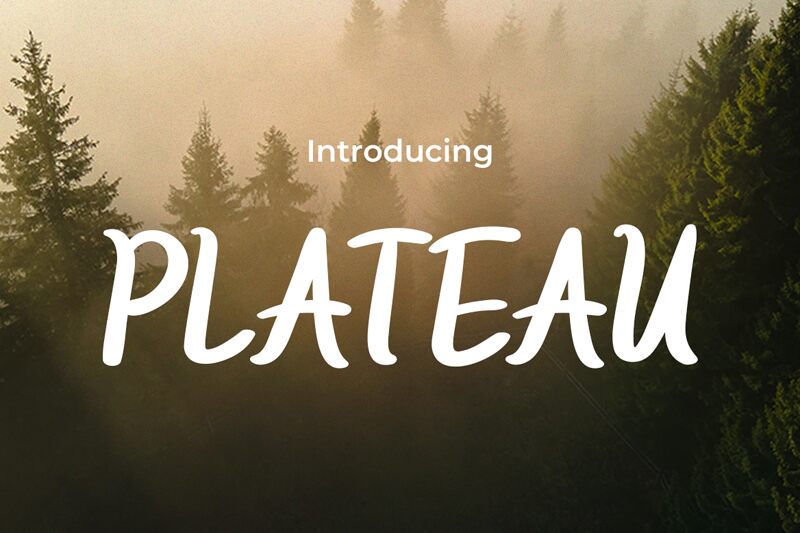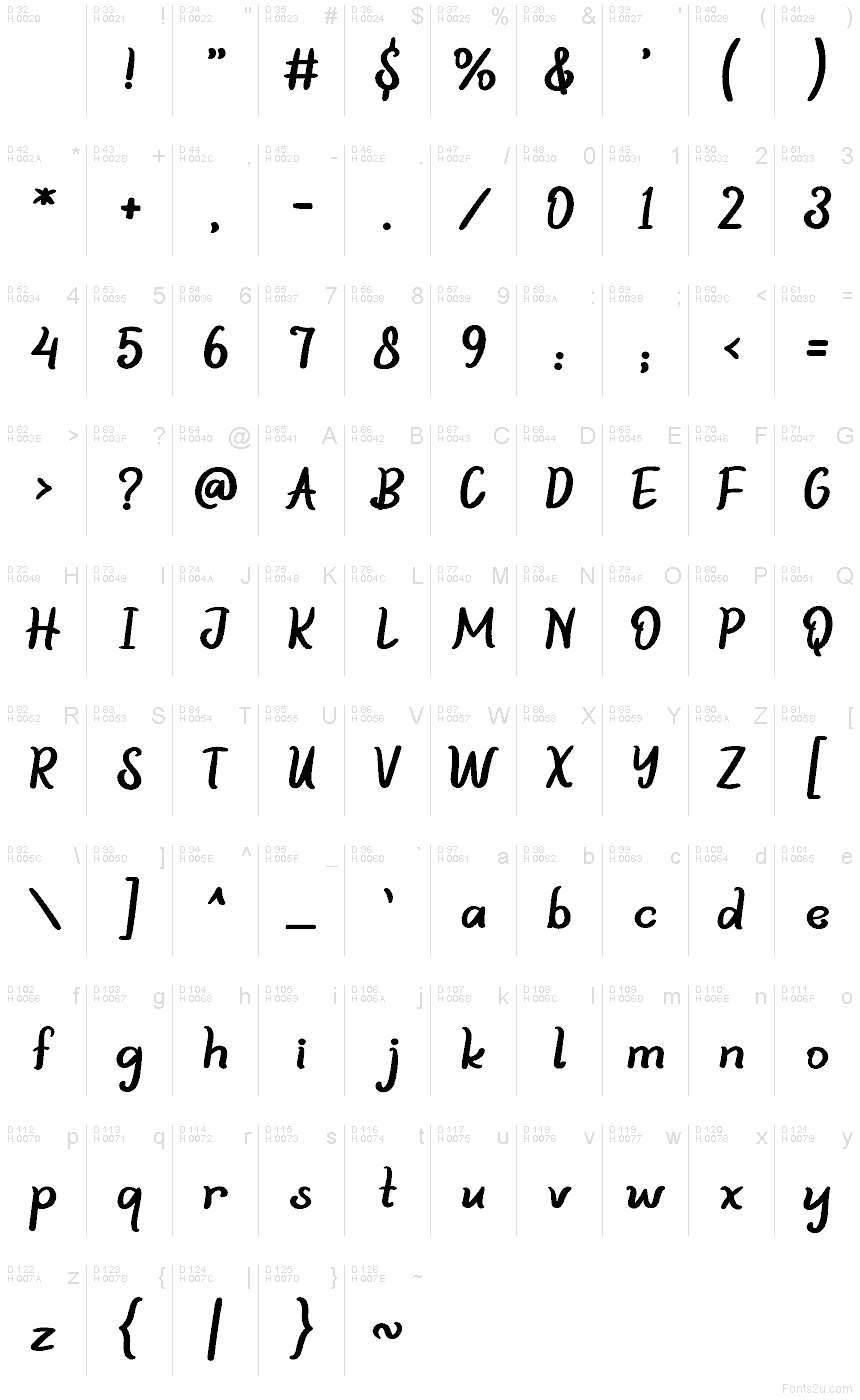
PLATEAU
Plateau font by Pinisiart is a free handwritten brush font. Bold, inky strokes and rounded, slightly tilted forms give it a friendly swagger, while the tight rhythm keeps words feeling cohesive and punchy. It reads like a fresh marker pass—soft edges, confident curves, and just enough texture to feel human without getting messy.
Using Plateau, headlines snap to attention on cafe menus, event flyers, packaging, Instagram posts, stickers, and casual logo wordmarks. The steady spacing and upbeat movement carry short phrases beautifully, adding energy without sacrificing clarity. For balance, pair this free font with a light, neutral sans at smaller sizes to let the brushy letters take center stage.